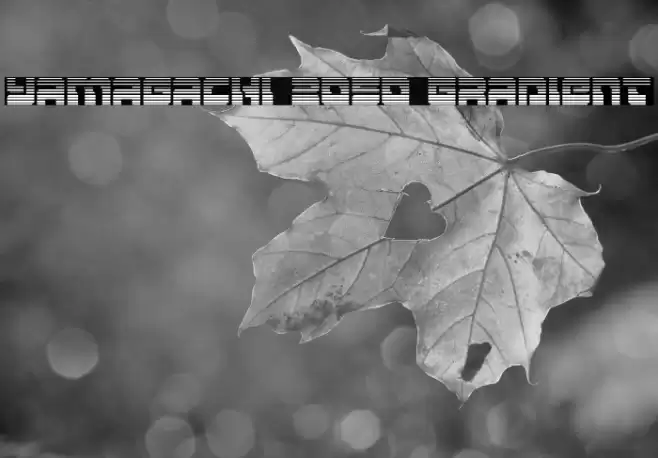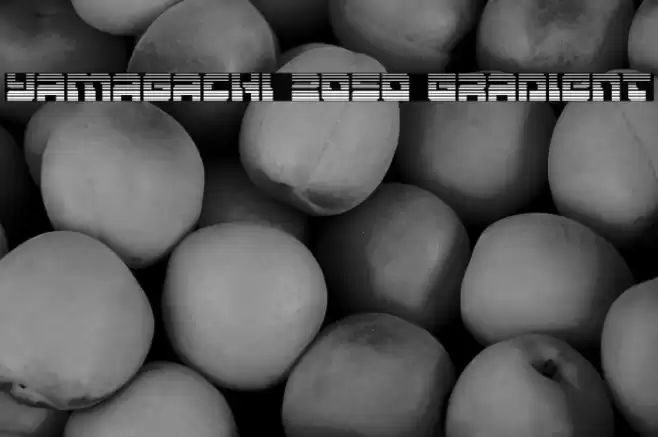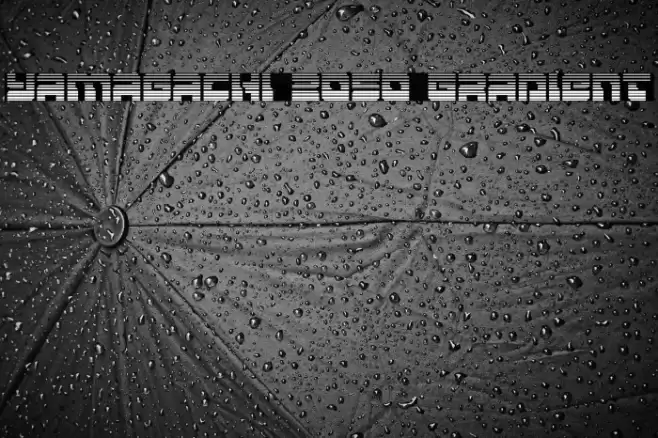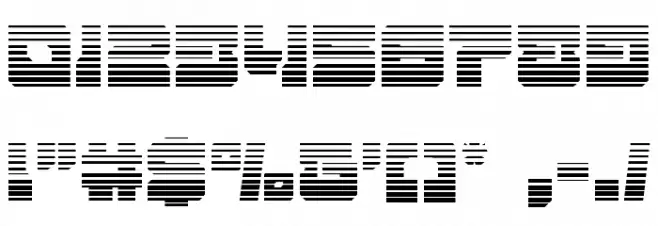
Yamagachi 2050 Gradient Font
Yamagachi 2050 Gradient Description
This font features a futuristic and digital aesthetic, characterized by its unique horizontal line pattern that creates a gradient effect across each character. The design is bold and eye-catching, making it ideal for projects that require a modern and technological feel. Each letter and number is constructed with precision, maintaining a consistent width and spacing that enhances readability despite its decorative style. The special characters follow the same design principles, ensuring uniformity across the font set. Its distinct appearance makes it suitable for creative and innovative applications.
A futuristic, gradient-style font with a bold, digital aesthetic from Uncategorized fonts.
- Proposed Projects: Ideal for tech-themed designs, digital art, futuristic branding, and innovative product packaging.